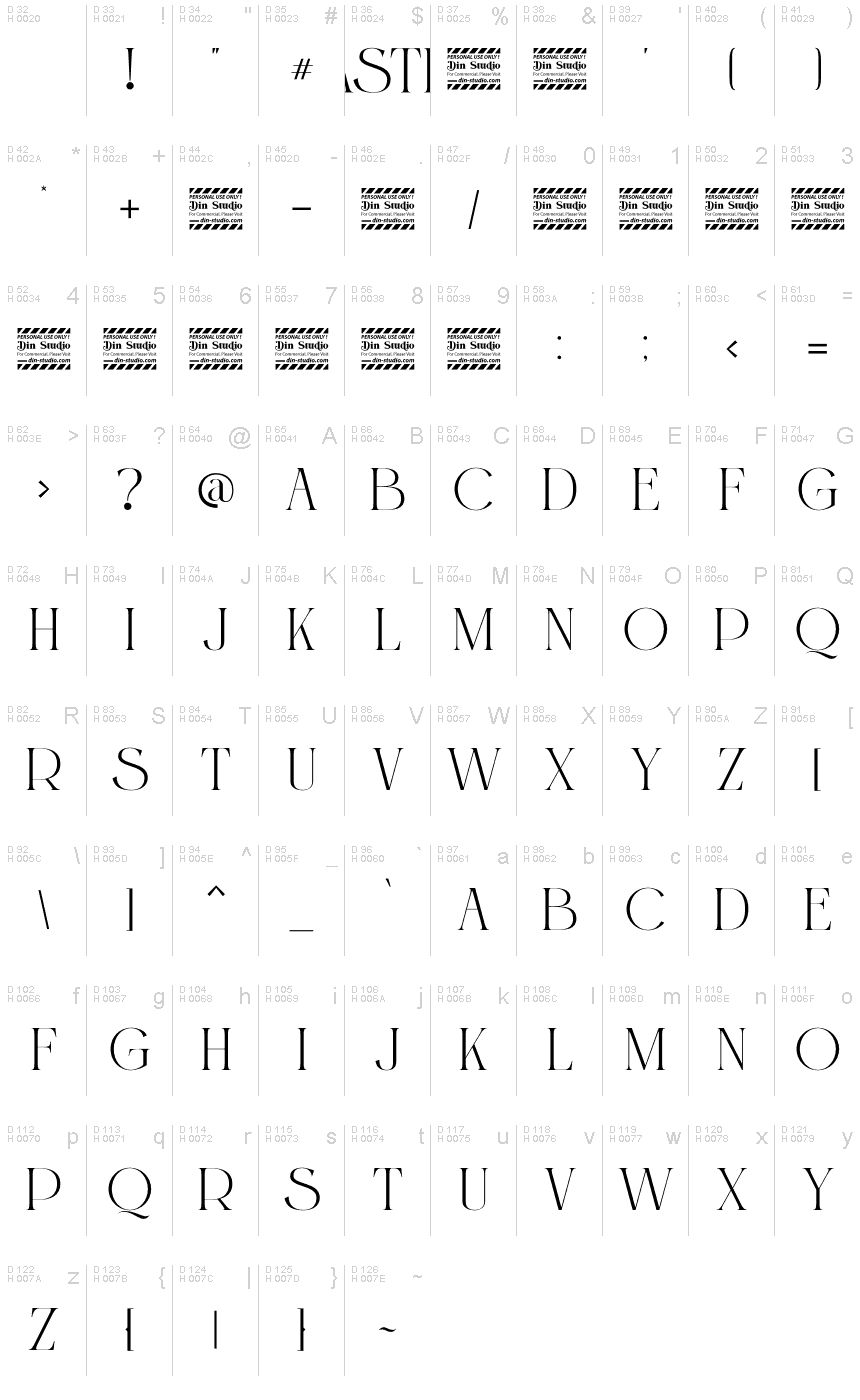
Castre Personal Use
Castre, the creation of Din Studio, is an exquisite semi-light serif font that exudes elegance. With its semi-expanded width, this font adds a touch of sophistication to any project. Its refined style makes it ideal for luxurious branding projects, such as high-end fashion or upscale restaurants.
Castre's graceful curves and delicate strokes also make it perfect for wedding invitations or elegant event signage. Whether used in print or online, this versatile font effortlessly elevates any design with its timeless appeal and refined aesthetics. Embrace the allure of Castre and embark on a journey of refined creativity.